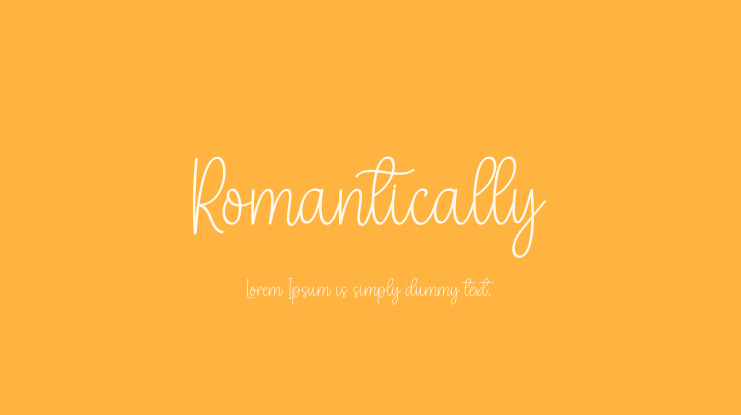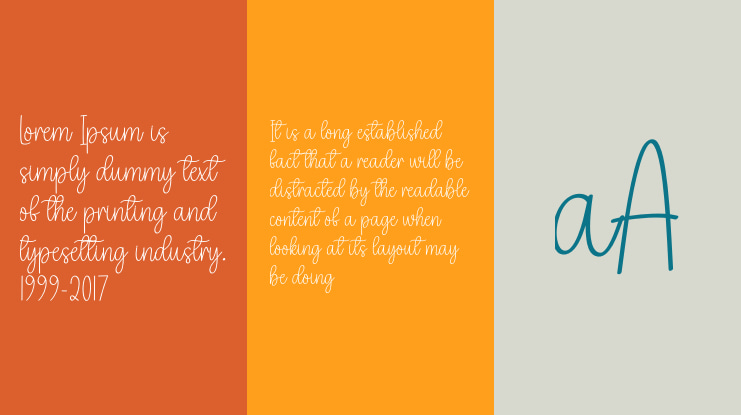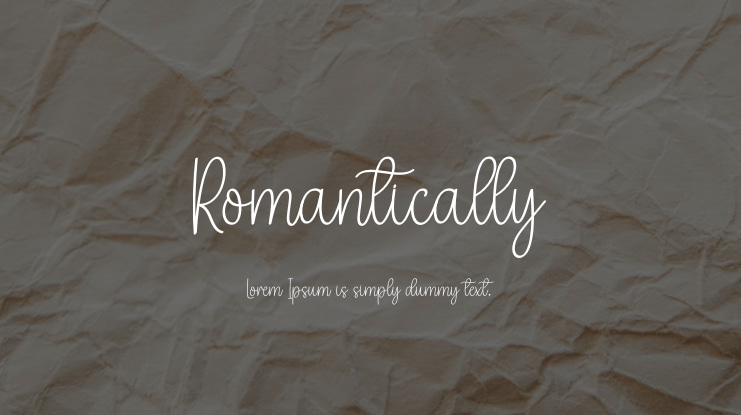
Romantically Font
The latest style letters are perfect for wall displays, wedding invitations, social media posts, logos, advertisements, product packaging, product designs, labels, photography, watermarks, invitations, stationery, and any project that requires tasteful handwriting.
Romantically font preview